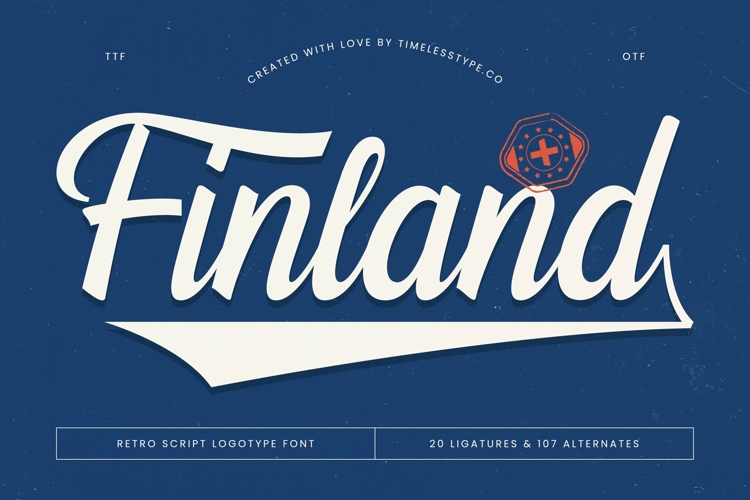
Finland - Retro Script Logotype Font
Discover the captivating allure of Font Finland - Retro Script Logotype Font Script, a masterful creation that brings a touch of vintage elegance to contemporary design. Its flowing lines and robust character radiate a truly timeless design, perfect for making an unforgettable statement. This sophisticated script captures the essence of classic American signage and heritage brands, ensuring your project exudes authenticity and charm with every stroke.
Unleash unparalleled creativity with Font Finland - Retro Script Logotype Font Script's impressive suite of 20 dynamic ligatures and 107 customizable alternates. These extensive stylistic sets allow for truly unique typographic compositions, making it ideal for luxury branding, exclusive product packaging, vibrant editorial layouts, and impactful headlines. It is perfect for projects demanding a touch of nostalgia combined with modern readability, from merchandise to eye-catching posters.
Expand your reach globally with the inherent adaptability of this exquisite typeface. With its extensive multilingual support, Font Finland - Retro Script Logotype Font Script adapts seamlessly across global markets, making it incredibly versatile for international projects. This ensures your message resonates clearly, transcending linguistic barriers with a consistent, professional design aesthetic, elevating your global brand identity.
Seize attention and elevate your brand with the distinctive visual impact of Font Finland - Retro Script Logotype Font Script. This typeface is more than just letters; it’s an investment in a powerful, memorable identity that stands out in any competitive landscape. Choose Font Finland - Retro Script Logotype Font Script to imbue your designs with unparalleled character and a truly iconic presence.